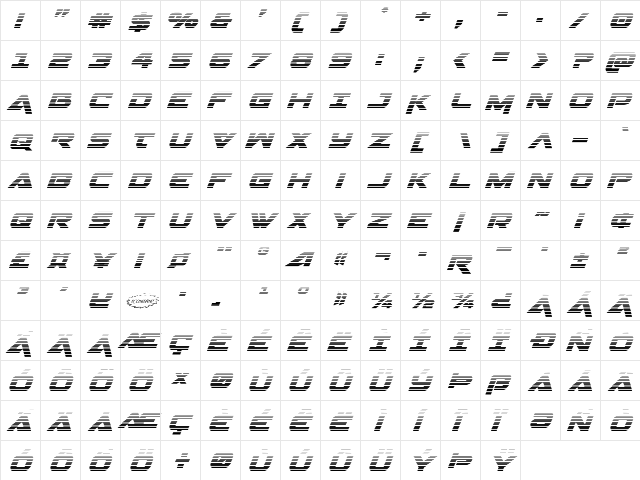
Gemina Gradient Italic Italic
Design Context for Gemina Gradient Italic Typeface
Gemina Gradient Italic is a composed and adaptable typeface that performs quietly and consistently across a wide range of design contexts. Its italic angle brings a sense of urgency and motion to the letterforms.
Pro Tip: Try Gemina Gradient Italic for annotation and caption copy alongside an upright companion — the contrast in angle creates a dynamic but ordered typographic system.